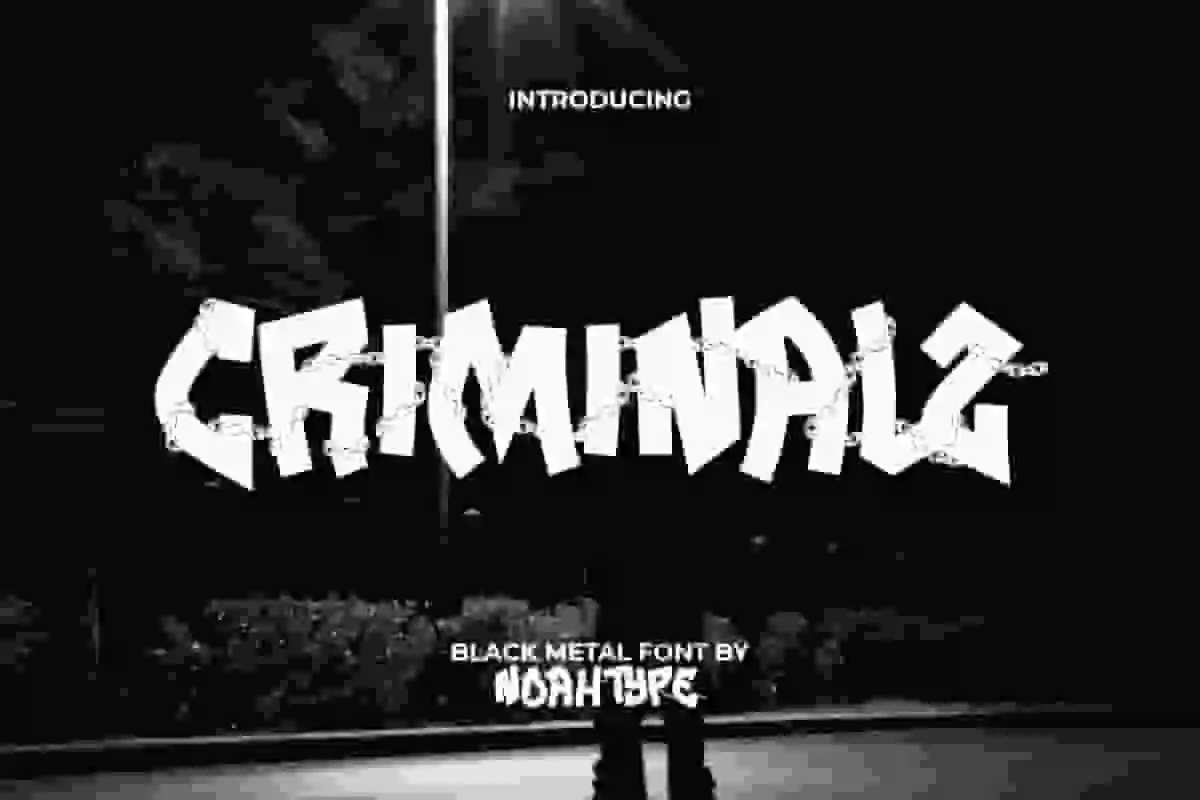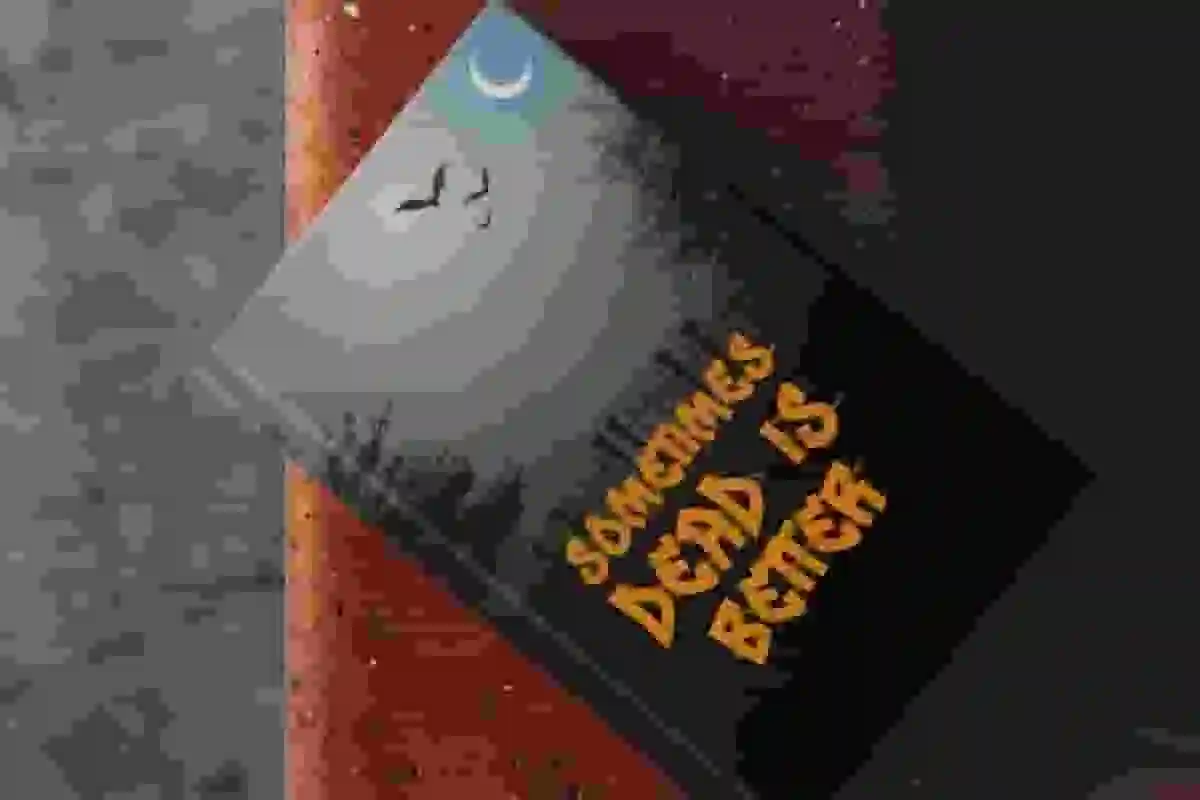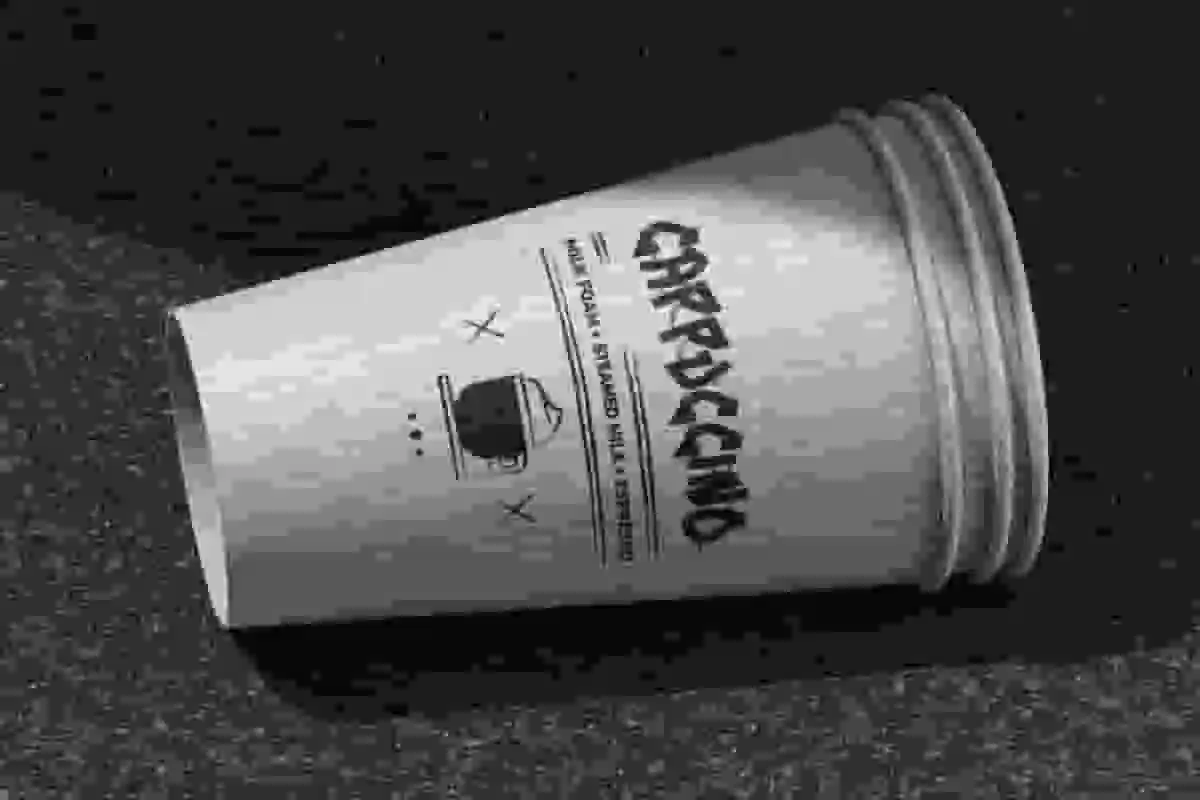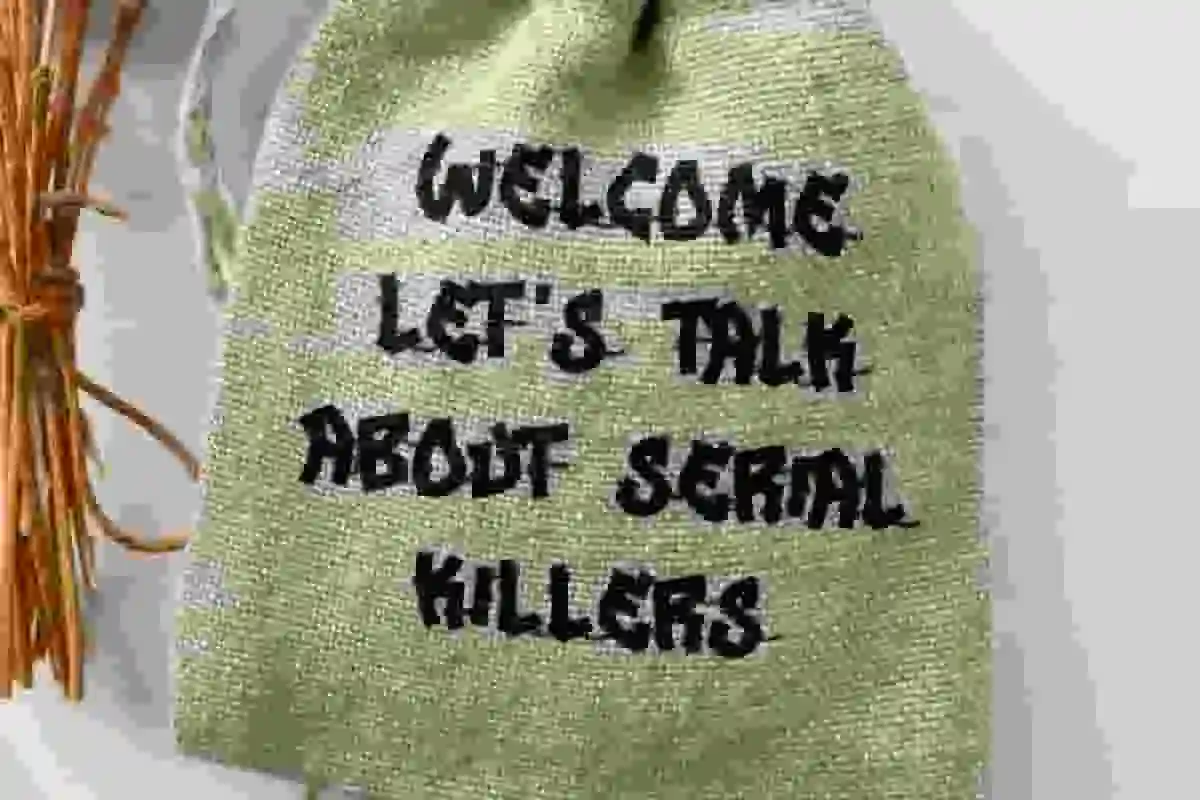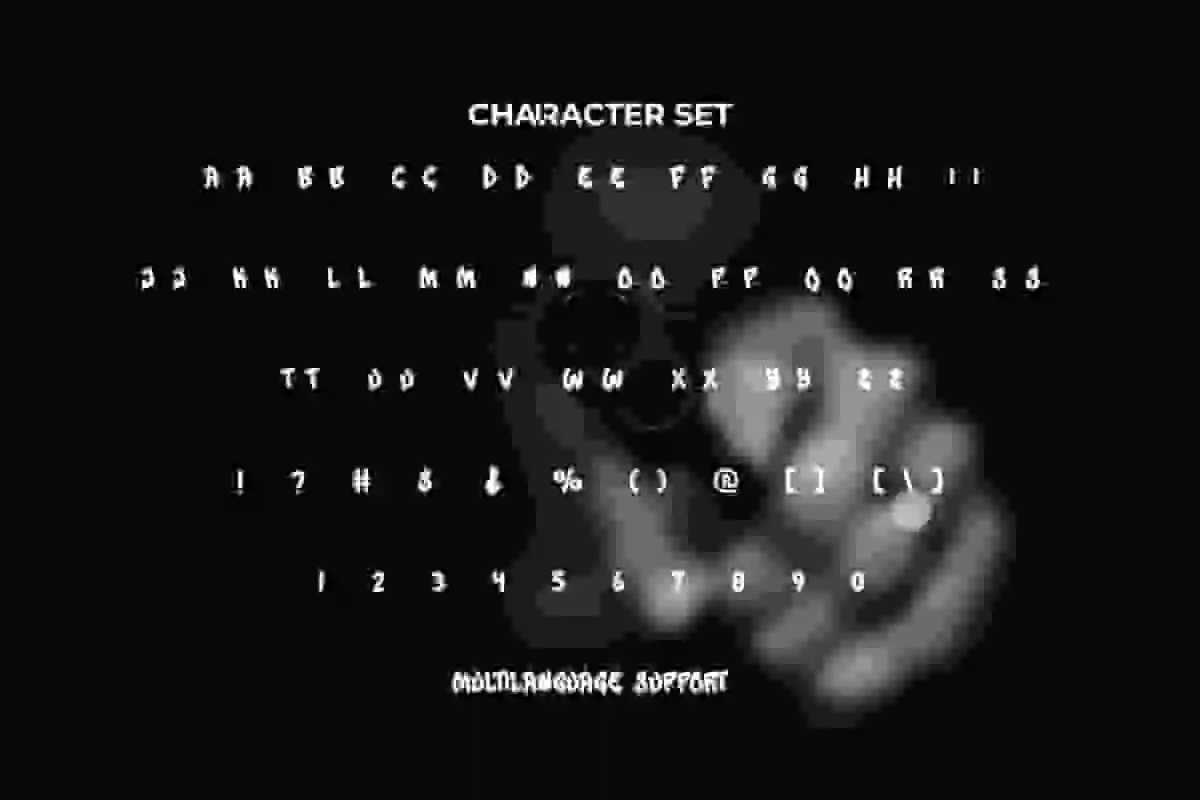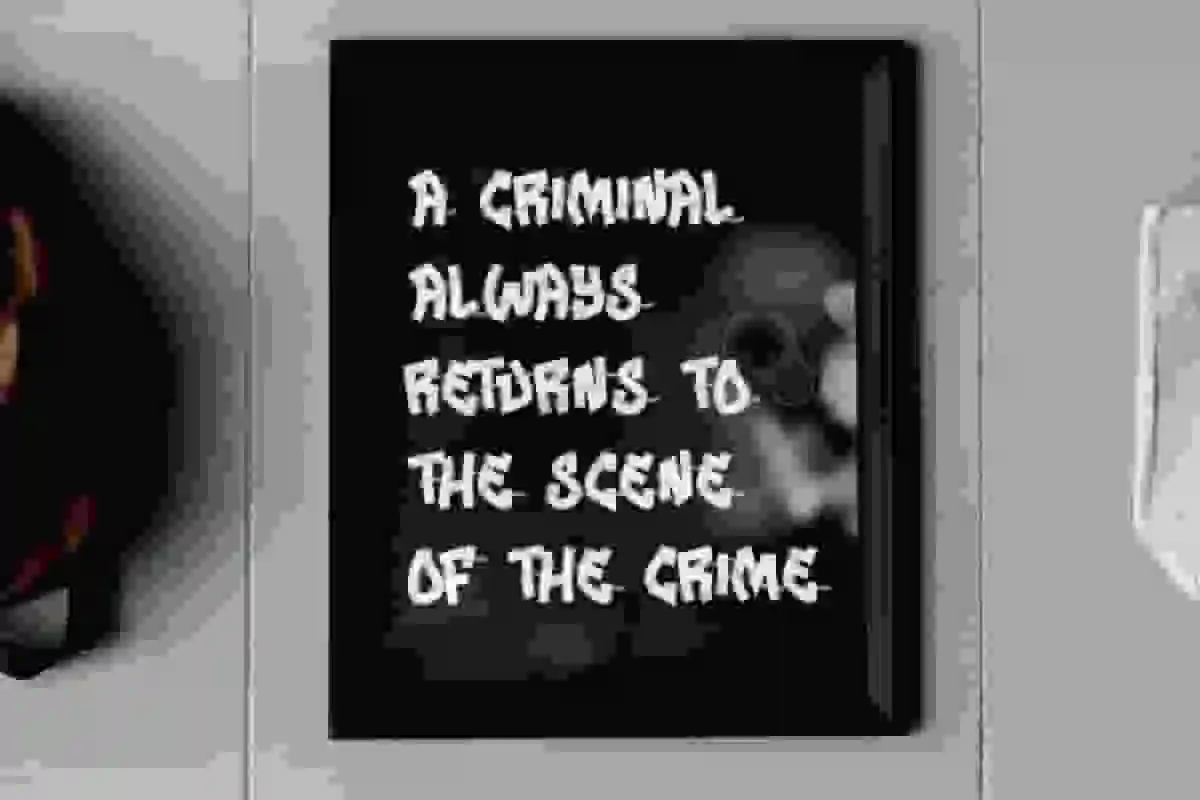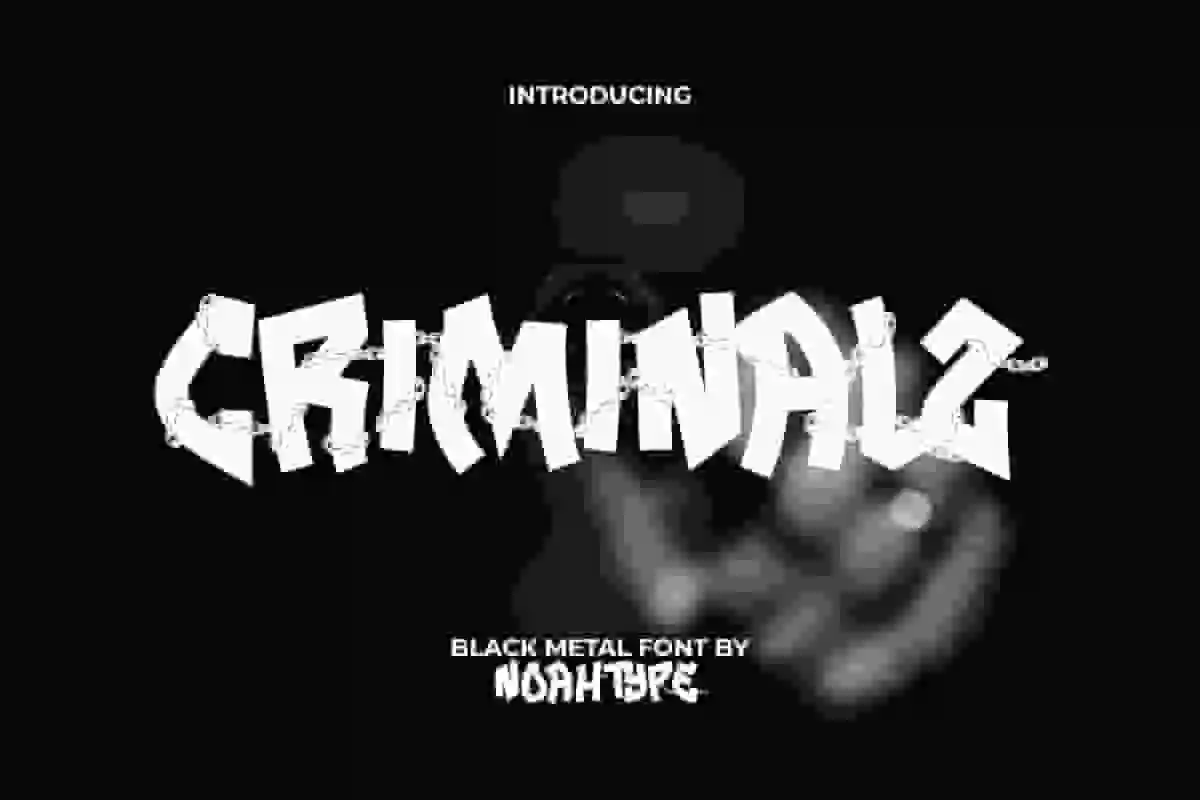
Criminalz Font is an impudent chained ornament guarded jail hard rock black metal decorative font. This font has a sharp graffiti style with the addition of small chains that surround each letter. It will be perfect for any designs, such as custom design, label, signage, poster, brand image, cover, invitation, marketing material, menu, printing, product packaging, quotes, website, and many more!
Criminalz Font includes full set of ALL CAPS for Uppercase and Lowercase Basic Characters, Numerals, Punctuation, and Symbol. This font will make your design one-of a kind and also a perfect choice for many industries, such as game, movie, event or festival, barber shop, fashion, accessories, advertising, art, café, printing, publishing, etc.